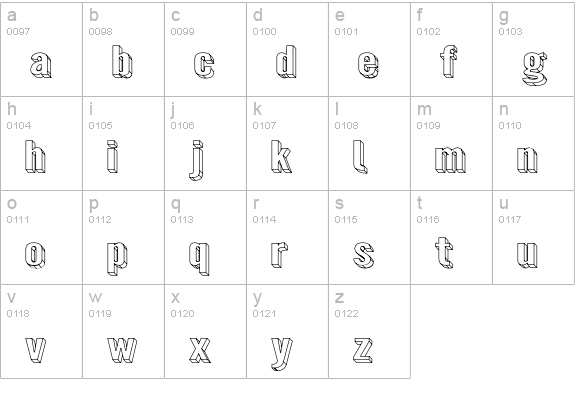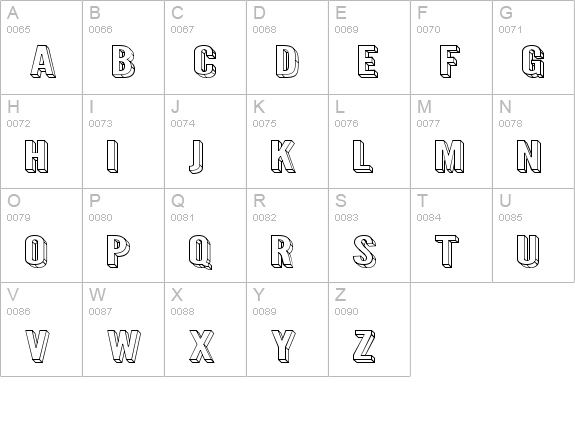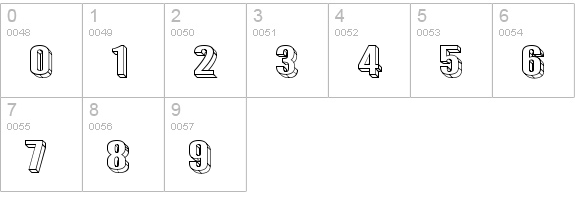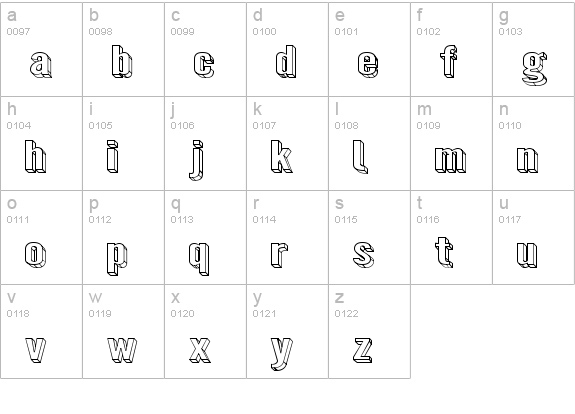
Warsaw Gothic SuperExtended 3D Font Details
The Warsaw Gothic SuperExtended 3D font is a captivating and intricate typeface that merges the timeless elegance of Gothic typography with a modern twist. Its bold and elongated letterforms are precisely crafted to evoke a sense of mystery and sophistication, making it the perfect choice for projects that require a touch of awe-inspiring creativity. This extraordinary font showcases a remarkable 3D effect, adding depth and dimension to each character. The carefully sculpted edges and shadows create a visually striking appearance, allowing the letters to leap off the page or screen with an almost tangible presence. Whether used for headlines, logos, or display purposes, the Warsaw Gothic SuperExtended 3D font will undoubtedly make a lasting impression. One of the most remarkable aspects of this font is that it is freely available to download at FontsMarket.com. This means that designers, artists, and enthusiasts alike can access this stunning typeface without any cost. Its availability ensures that creativity knows no boundaries, allowing anyone to incorporate the Warsaw Gothic SuperExtended 3D font into their projects with ease. With its versatility and visual impact, this font is ideal for a wide range of applications. From book covers to posters, movie titles to album artwork, the Warsaw Gothic SuperExtended 3D font will infuse any design with a sense of grandeur and style. Its unique combination of Gothic aesthetics and three-dimensional design make it a standout choice for those seeking to push the boundaries of traditional typography. Embrace the captivating allure of the Warsaw Gothic SuperExtended 3D font and embark on a journey that transcends the ordinary. Download it for free at FontsMarket.com and unlock a world of creative possibilities.